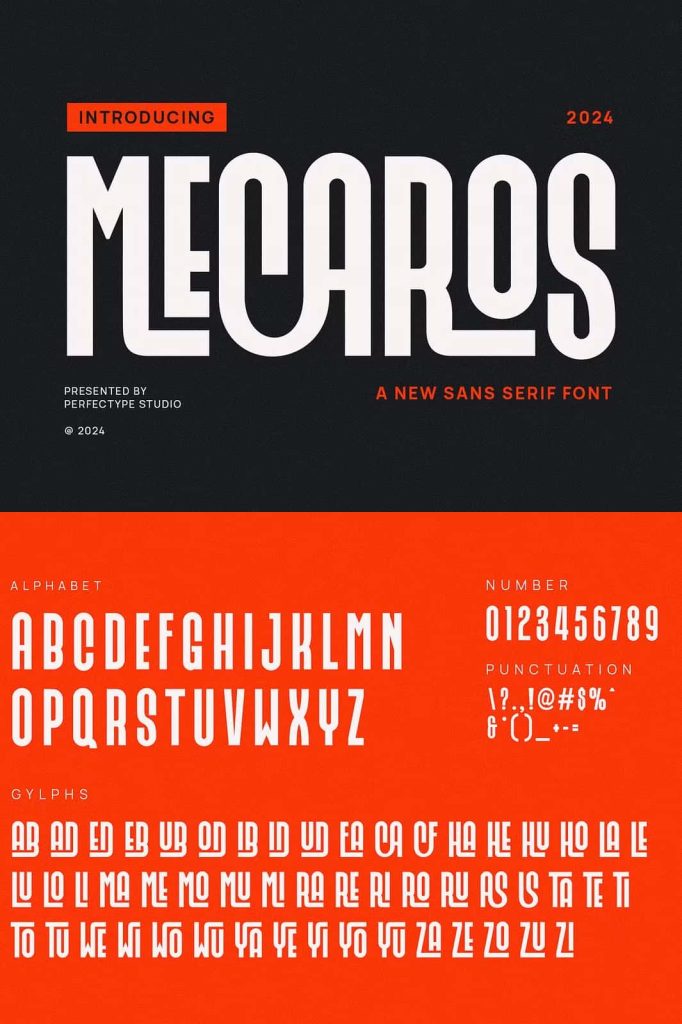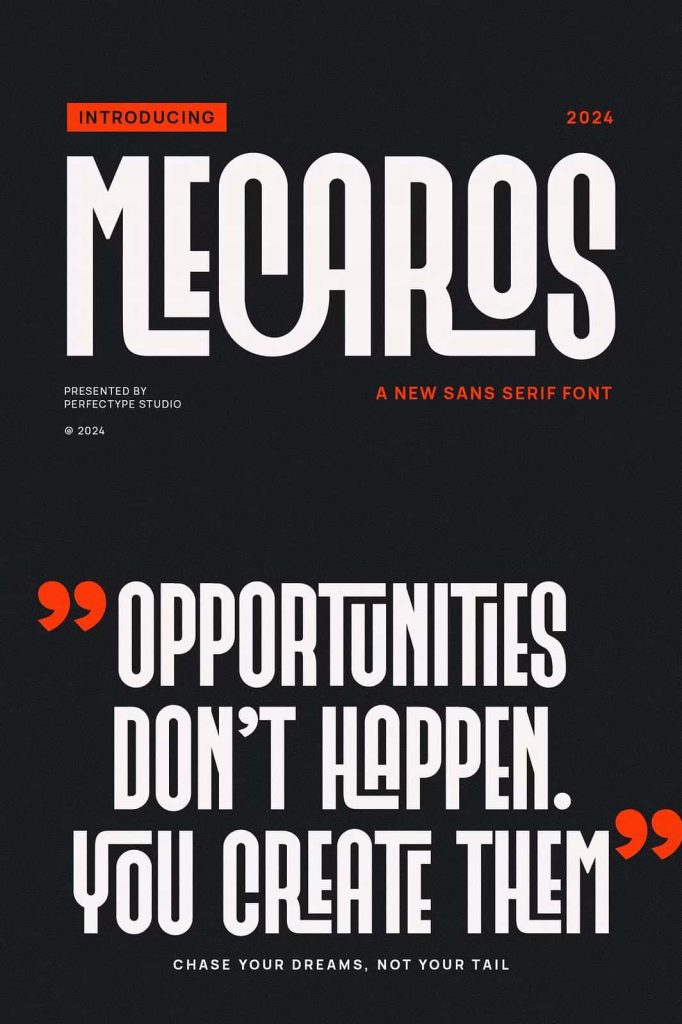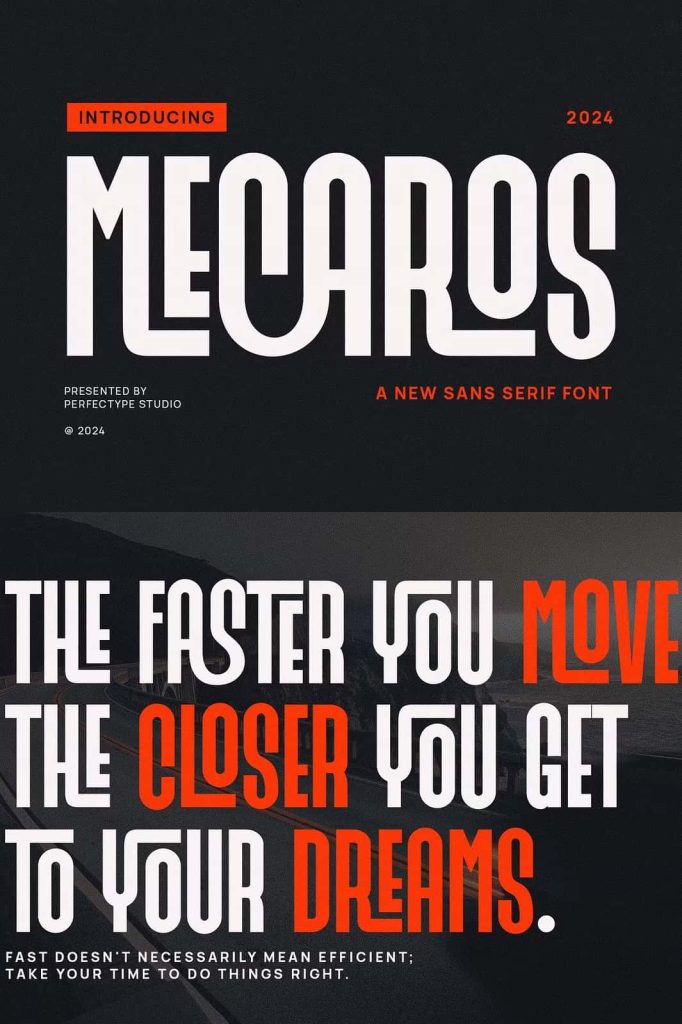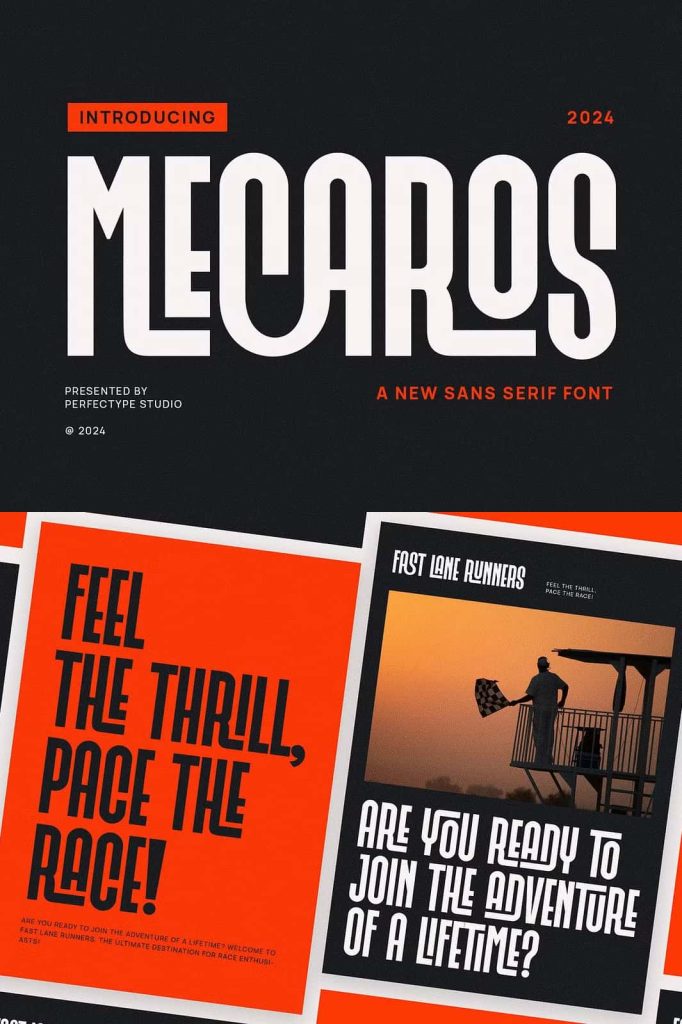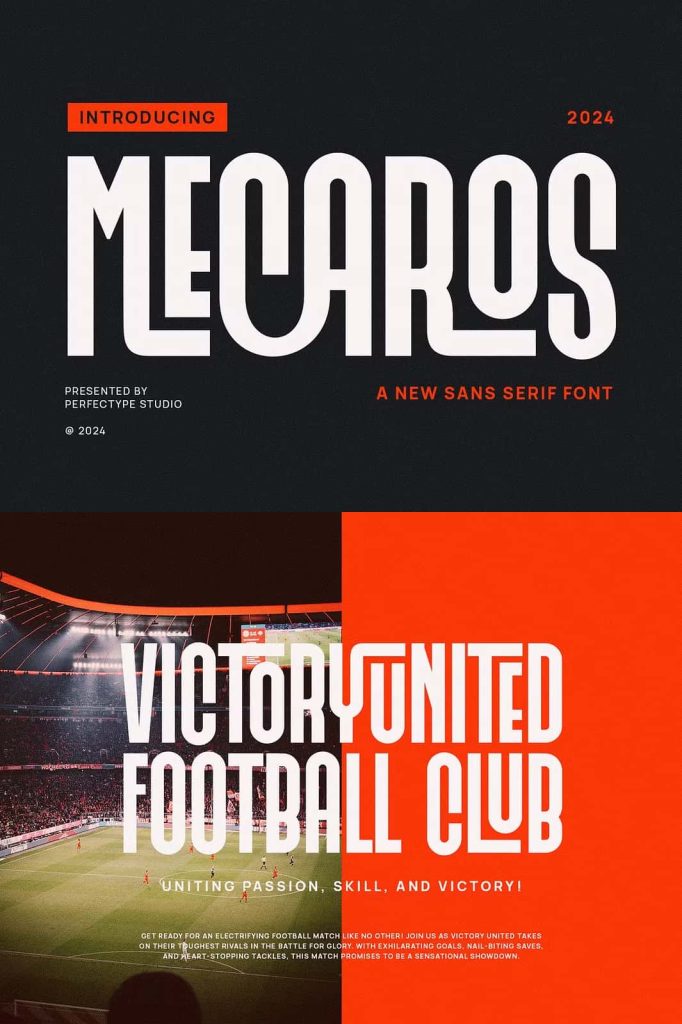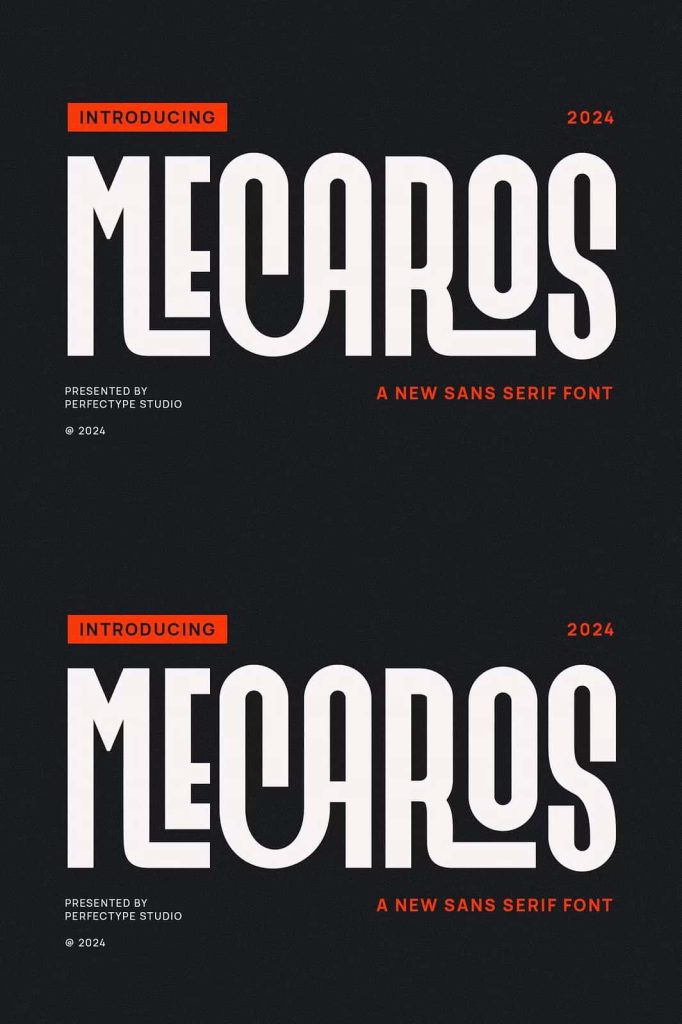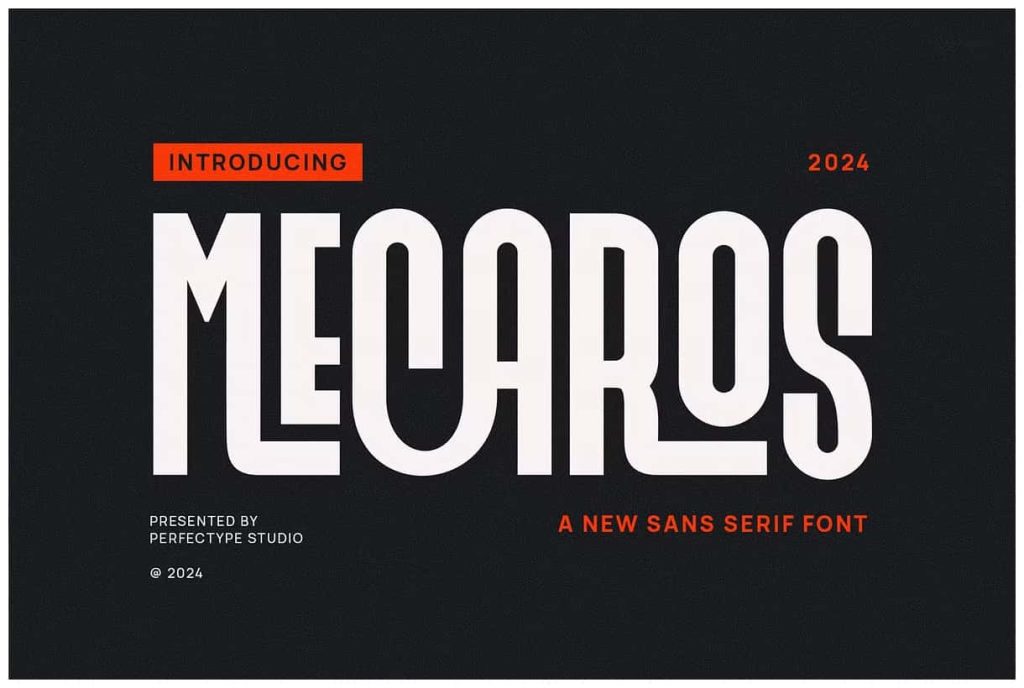
Mecaros – Modern Ligature Sans SerifleastedJanuary 29, 2025Fonts Mecaros is a contemporary sans-serif font that blends symmetry and balance with unique ligatures Download